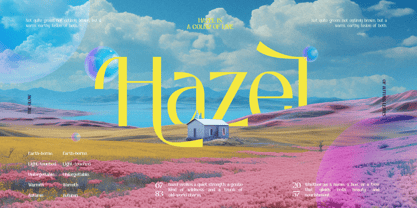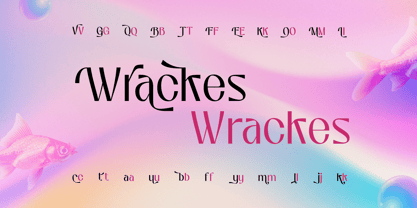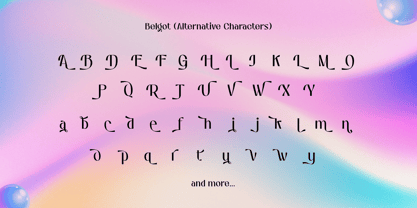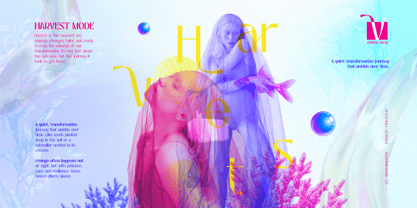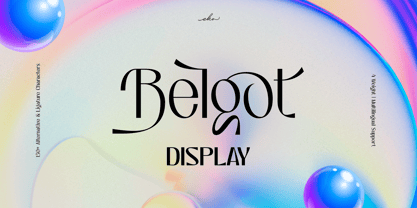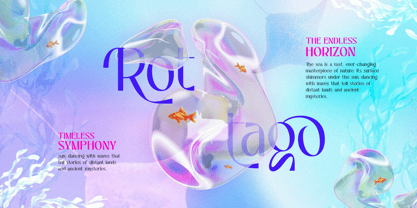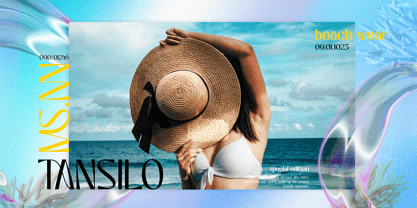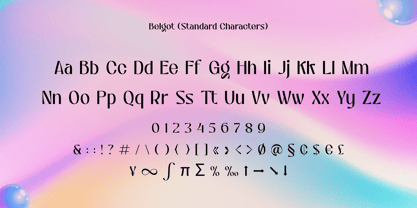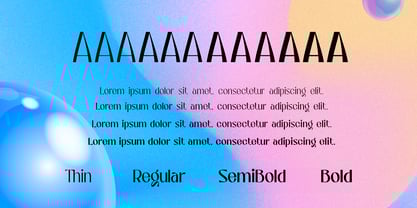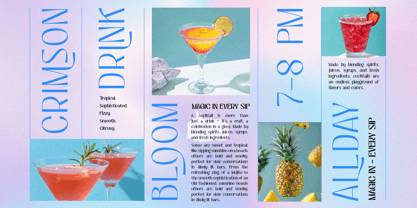
Belgot
by Ekahermawan
The Belgot Font Family was designed by Putu Eka Hermawan and published by Ekahermawan. Belgot contains 4 styles and family package options.
Belgot Display isn’t just a typeface — it’s a visual voice, designed to bring elegance and bold character into your design work. Inspired by high fashion, modern editorial layouts, and artistic letterforms, Belgot delivers a sophisticated presence that’s impossible to ignore. Every curve and detail is crafted to create rhythm and personality. The font includes an extensive range of alternate characters and stylish ligatures, giving you the freedom to experiment and make each word feel like a custom creation. Whether you're working on branding, packaging, magazine titles, or digital art, Belgot is ready to make your work shine. With four distinct weights and full multilingual support, this typeface is both versatile and expressive — perfect for designers who want to break away from the ordinary and create something timeless.